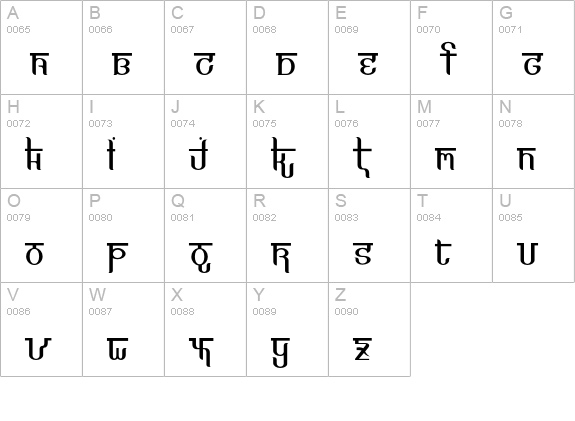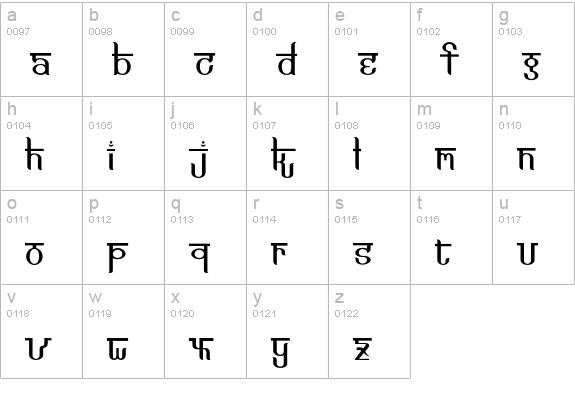
Exotica-Edelweiss Font Details
Exotica-Edelweiss font is a stunning and elegant typeface that exudes sophistication and charm. With its delicate curves and intricate details, this font is perfect for adding a touch of class to any design project. The Exotica-Edelweiss font is free to download at FontsMarket.com, making it accessible to all designers and creatives looking to elevate their work with a touch of luxury. Add a touch of refinement to your designs with the Exotica-Edelweiss font today!